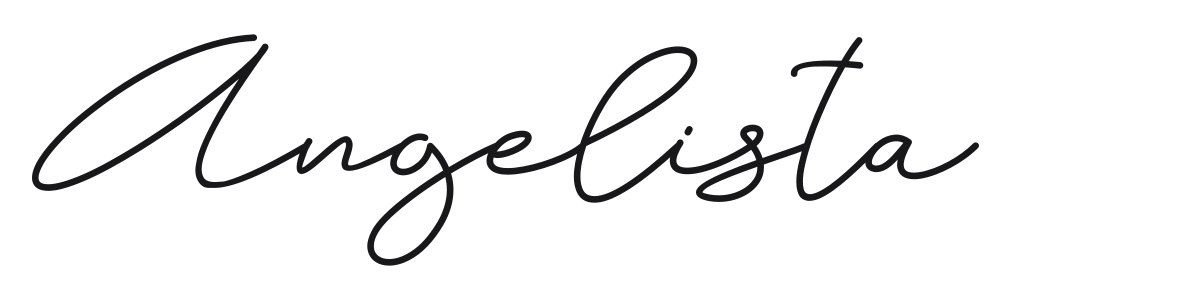
Angelista
by Sarif Letter
Angelista is a thin, flowing casual script with long sweeping loops and a relaxed handwritten rhythm. Its near-monoweight strokes and generous connecting tails give it an airy, romantic quality that sits comfortably between formal calligraphy and everyday handwriting. It works best at large sizes where its graceful motion can read clearly.